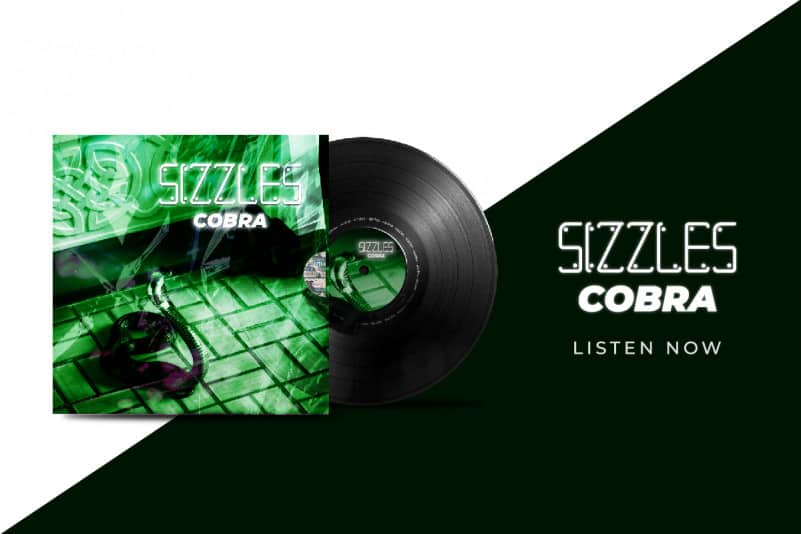
Snake Game Display Font
Snake Game Display Font is a Display Font with fun weird modern style. The character of the font is modern, elegant, luxury, glamour, futuristic and sophisticated. Snake Game font will be awesome for game, apps, website etc